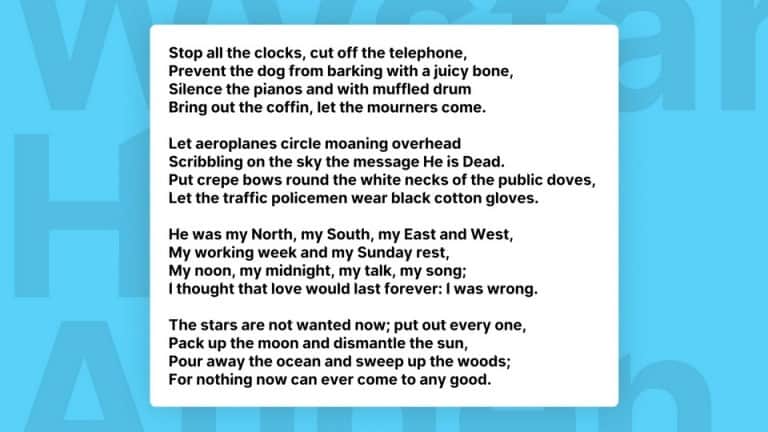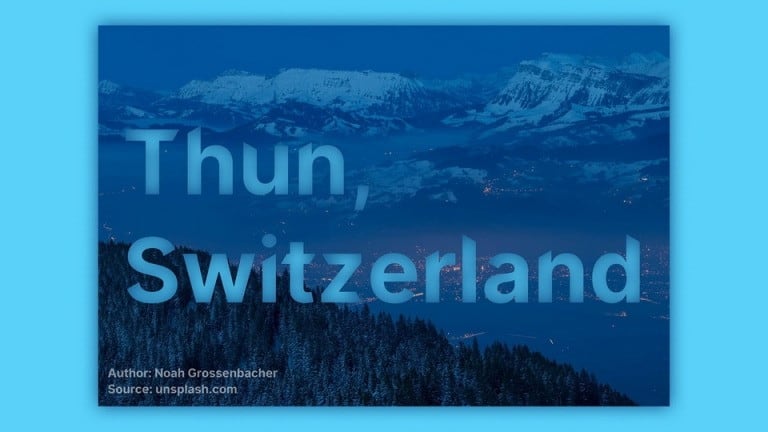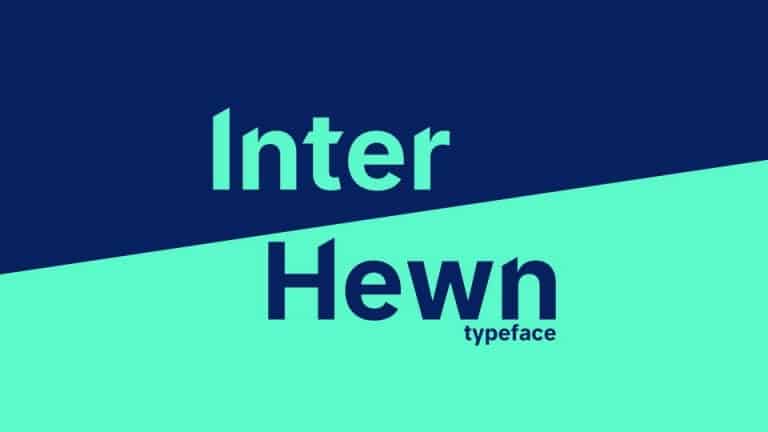
Introducing Inter Hewn Sans Serif Font this is a sans serif font useful for print or digital product, this font has a unique style and elegant design. The font makes you to focus on the text, its lines and sharp edges. It can be perfectly used with Helvetica, San Francisco or Inter typefaces in your projects. It reveals the font as the best way to make the title, any kinda text look interesting and beautiful in your iOS or web prototype.